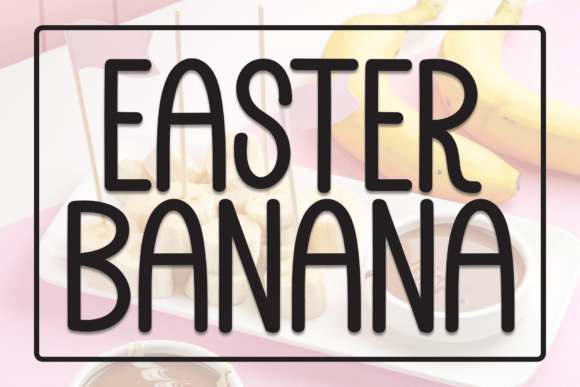
Introduction to Easter Banana Font
Discover the allure of our handwritten display font, strikingly sweet and delightfully friendly.
Crafted with an irresistible charm, this adorable font is a perfect fit for your wedding invitations and cards bringing a unique fun twist to your designs Transport your audience to a world of whimsical delight with every alphabetic expression.
Key Features of Easter Banana Font